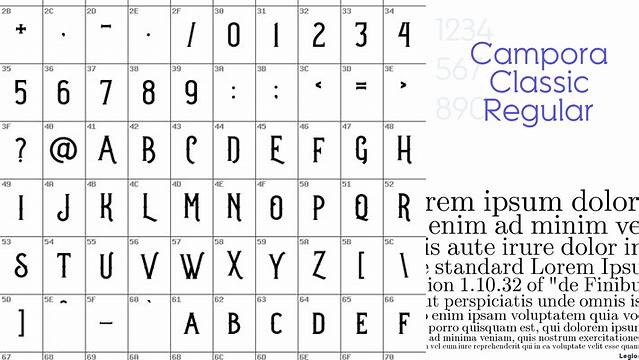
Classic Regular Font: Free Download Guide
Hey guys! Are you on the hunt for the perfect font to add a touch of timeless elegance to your projects? Look no further! We’re diving deep into the world of the classic regular font, a staple in design that never goes out of style. Whether you’re a seasoned designer or just starting out, this guide will help you find, download, and use this versatile font to its full potential. Let's get started!
What is Classic Regular Font?
First things first, let's talk about what exactly we mean by a classic regular font. Think of those fonts that you see everywhere – in books, on websites, in logos – and they just work. They’re legible, versatile, and have a certain timeless quality. These fonts often have clean lines, balanced letterforms, and a neutral appearance that makes them suitable for a wide range of applications. When we talk about a classic regular font, we're referring to a font style that embodies these characteristics, providing a reliable and aesthetically pleasing option for your design needs. This type of font is crucial because it forms the backbone of readability and visual appeal in numerous projects, from branding to web design. The beauty of a classic regular font lies in its ability to blend seamlessly into any design, enhancing the message without overpowering it. It’s like the little black dress of typography – always appropriate, always stylish. So, if you're aiming for a look that is both professional and inviting, understanding the nuances of a classic regular font is your first step toward typographic success. Now that we've covered the basics, let's explore why finding a good one is so important.
Why Use a Classic Regular Font?
So, why should you even bother with a classic regular font? Well, there are tons of reasons! For starters, they’re incredibly versatile. You can use them for everything from body text to headlines, and they’ll look great in both print and digital formats. The clarity and readability offered by a classic regular font are unparalleled, ensuring your message is easily understood by your audience. This is particularly important in professional contexts where clear communication is key. Imagine using a fancy, decorative font for your business reports – it might look interesting, but it could also make your document difficult to read. A classic regular font, on the other hand, prioritizes legibility, making it a safe and effective choice for any formal or informal setting. Beyond readability, the timeless appeal of a classic regular font is another major advantage. Trends come and go, but the elegance and simplicity of these fonts endure. By choosing a classic regular font, you're investing in a typeface that will continue to look stylish and relevant for years to come. This is especially crucial for branding purposes, where consistency and longevity are essential. Plus, because they're so widely used, many classic regular fonts have extensive character sets and language support, making them ideal for international projects. Let's move on and discuss where you can find these gems for free.
Top Free Classic Regular Fonts to Download
Now that you know where to look, let's talk about some specific classic regular fonts that you can download for free right now. We’re going to highlight some of the most popular and versatile options out there, so you can start using them in your projects ASAP. First up, we have Roboto. This sans-serif font is a Google creation and is used extensively across the Android operating system. Its clean lines and modern feel make it a great choice for both body text and headlines. Roboto is incredibly legible and comes in a variety of weights, giving you plenty of flexibility. Another standout is Open Sans. Designed by Steve Matteson, this humanist sans-serif font is known for its neutral yet friendly appearance. Open Sans is another excellent choice for body text, as it's easy on the eyes and maintains clarity even at smaller sizes. Lato is another fantastic option. This sans-serif font has a slightly rounded feel, which gives it a warm and inviting vibe. Lato works well in a variety of contexts, from websites to print materials. Next on the list is Montserrat. Inspired by the urban typography of Buenos Aires, Montserrat is a geometric sans-serif font that exudes a sense of style and sophistication. It's a great choice for headlines and branding materials. Finally, let's not forget about Raleway. Initially designed as a single-weight display font, Raleway has since been expanded into a full family of weights. Its elegant and slightly quirky letterforms make it a unique yet still highly legible option. Now, let's talk about how to actually download and install these fonts.